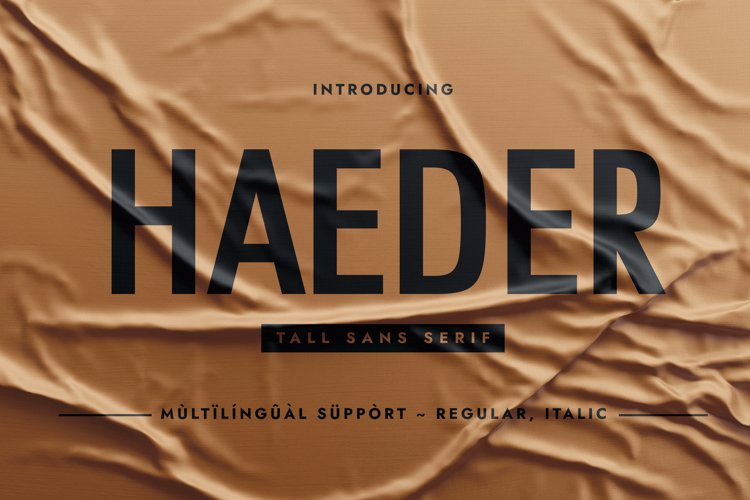
Haeder Font
ITALIC Regular Style
π¨ Font Name: Haeder by Minimalist Art Studio
π¨ Font Description: Haeder is a tall sans serif with multilingual supportβperfect for editorial headlines, fashion branding, and minimalist packaging.
β Complete Latin set + multilingual diacritics
β Alternates, stylistic sets & ligatures
β Numbers, small caps, and extended punctuation
β Bonus italics and family styles